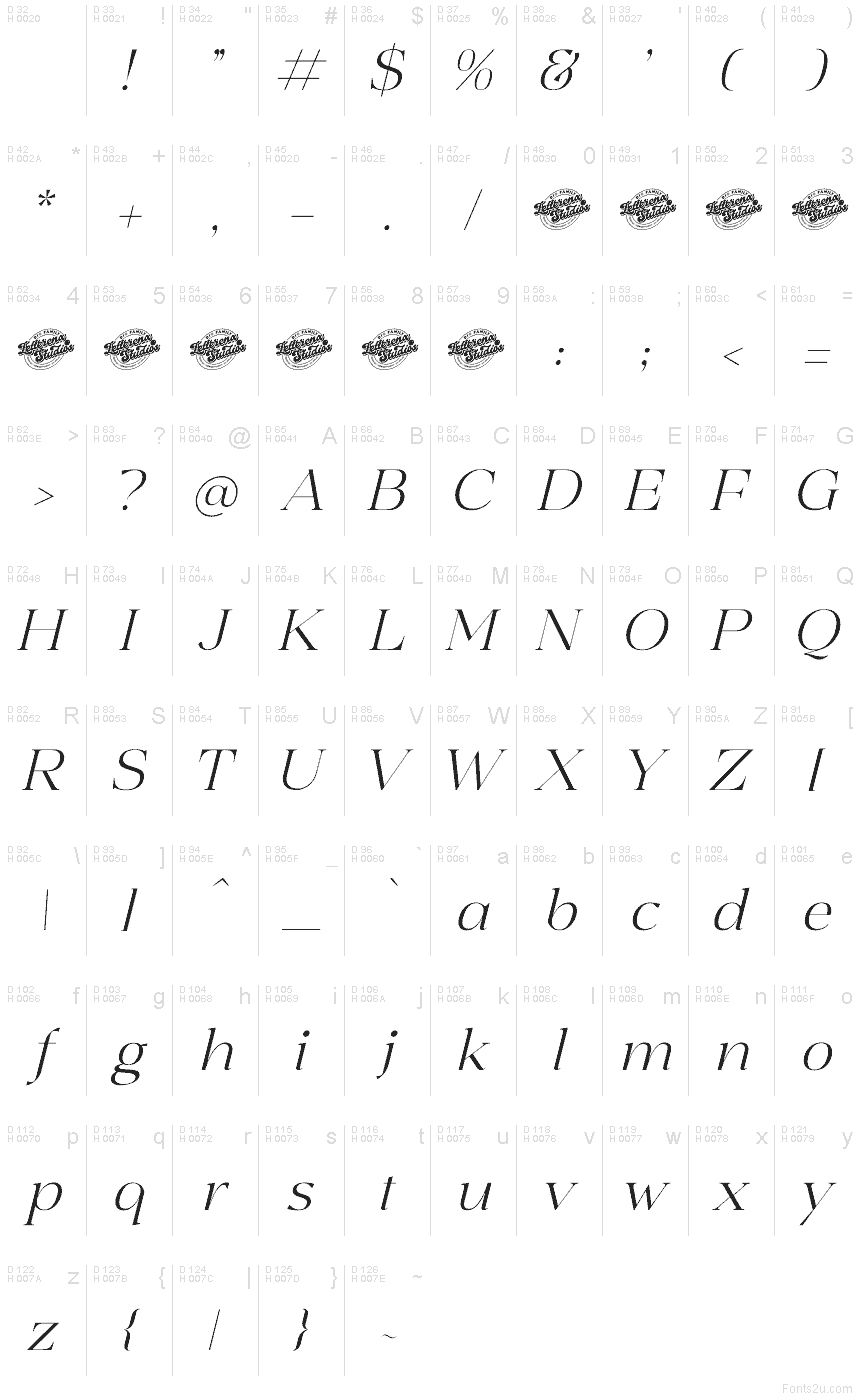
Qikelan DEMO VERSION Italic
Qikelan Italic font by Letterena Studios is a free serif typeface with a distinctly fluid, calligraphic slant. Its letters sweep forward with silky curves, then snap to fine, needle-like edges, giving every word a sense of motion and polish. The spacing feels airy yet intentional, so even a single word set large has the drama of a boutique logo or perfume label.
Using Qikelan Italic, you get a refined voice that shines on luxury branding, packaging, wedding stationery, editorial titles, social media graphics, and upscale posters. This free font brings a poised, fashion–magazine elegance that reads as modern rather than stuffy. For longer text blocks, pair Qikelan Italic with a clean sans serif at smaller sizes, and let Qikelan handle the expressive headlines and names.